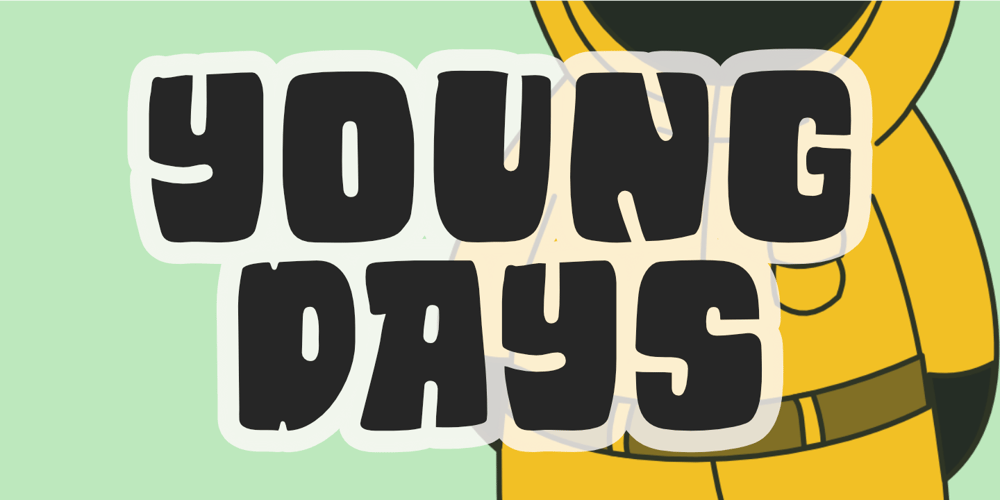
Young Days Font Family was designed by Nurul Hidayani and published by Olivetype. Young Days contains 1 styles and family package options. Young Days is a font for the confident. It’s big and loud, suitable for when you’re looking to create a statement. Whether you’re creating a poster or packaging your product, this font can help you make an impact. Young Days font includes : Young Days OTF & TTF Standard Latin Uppercase and Lowercase Numbers, symbols, and punctuations Multilingual Support. Thank You.